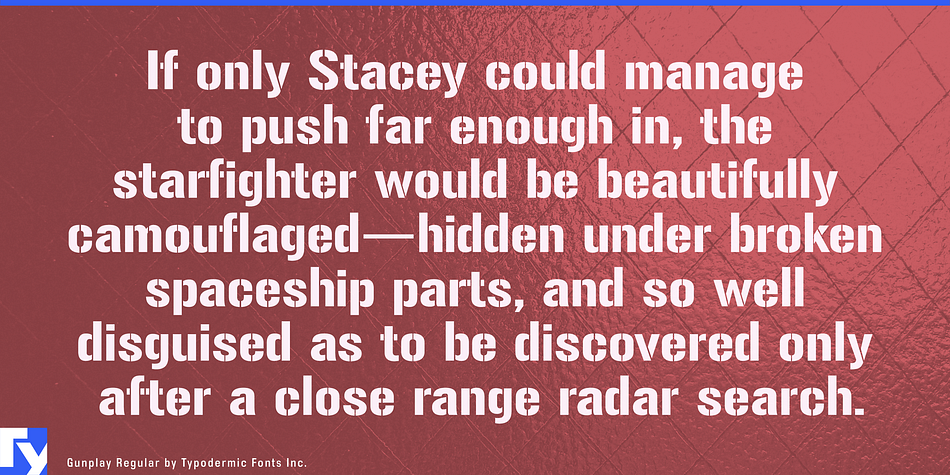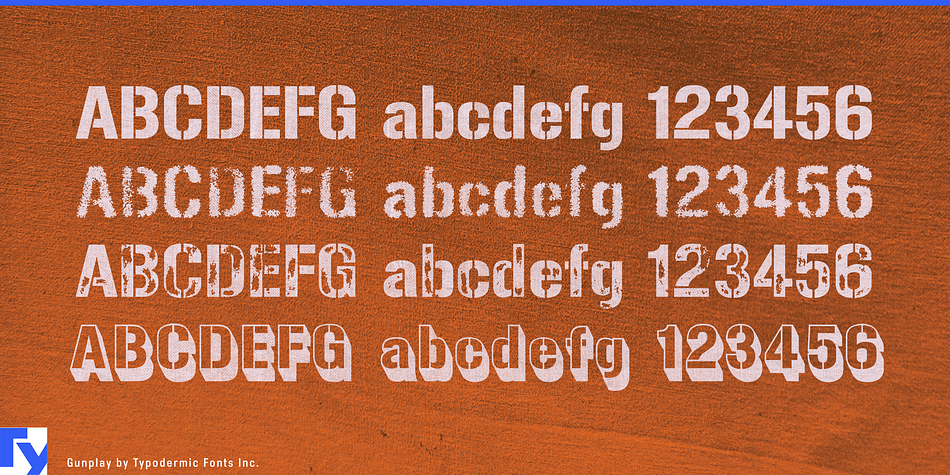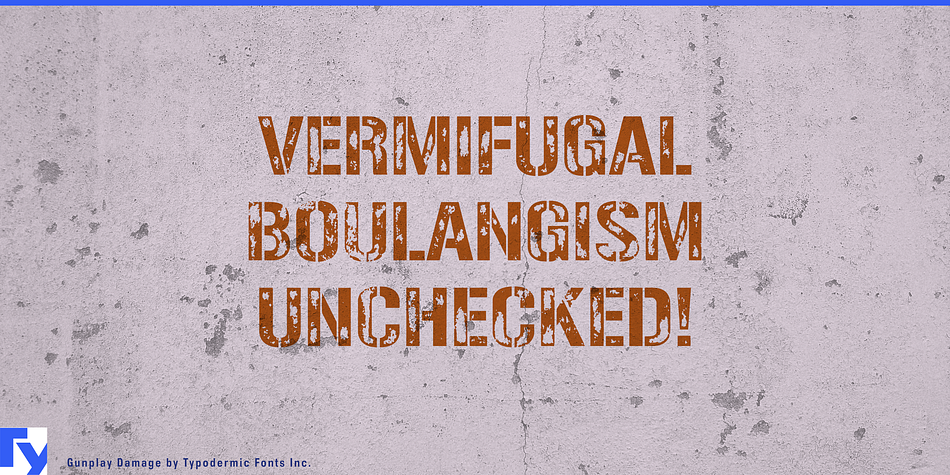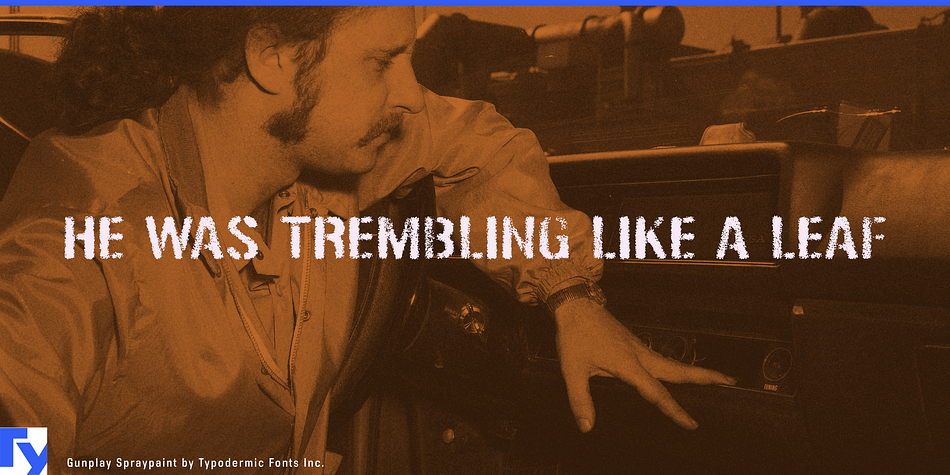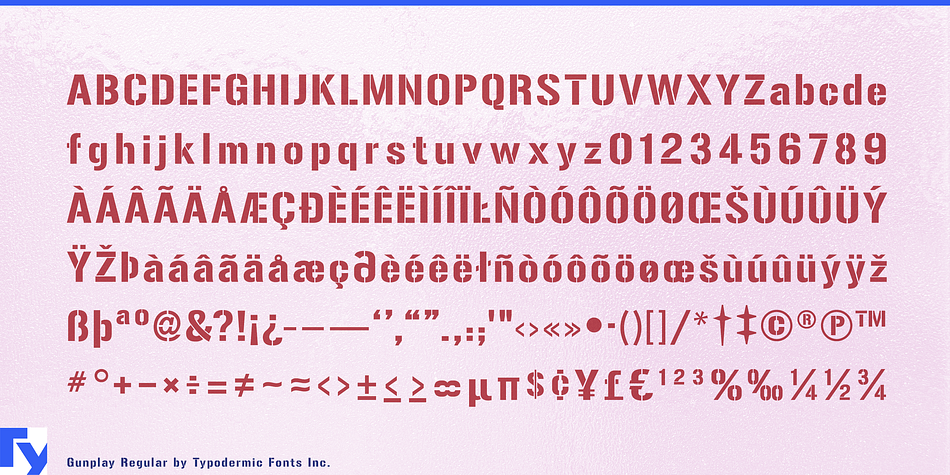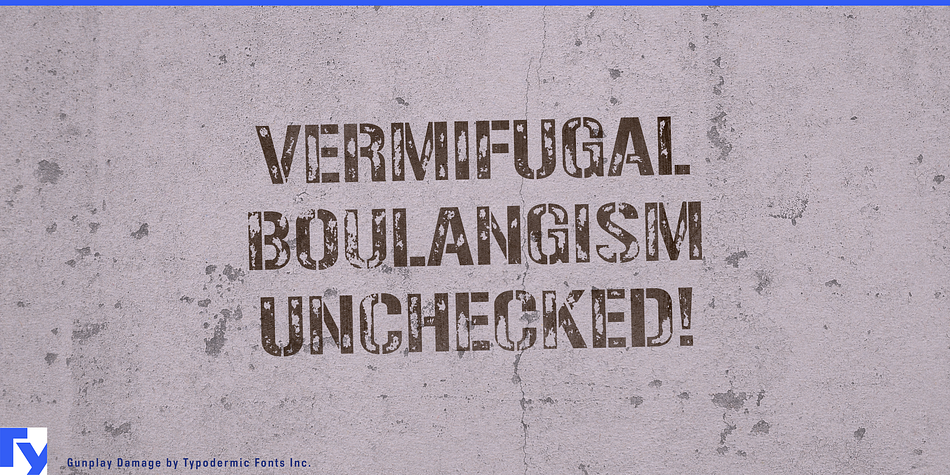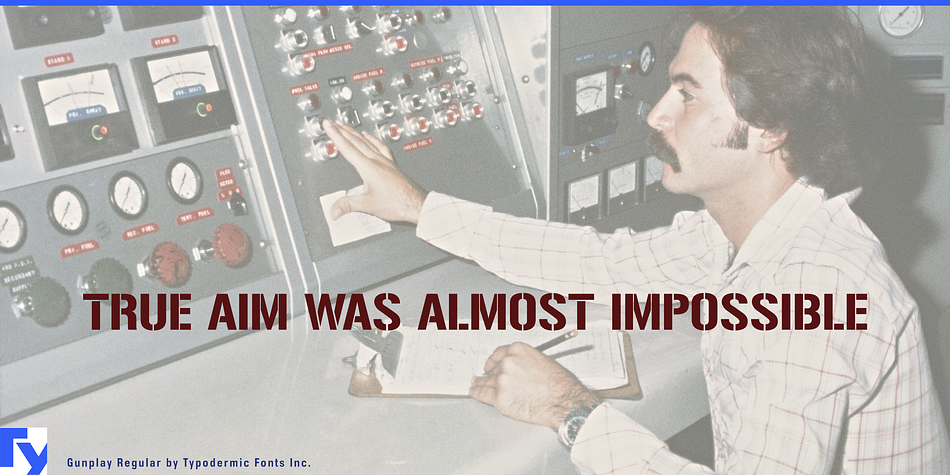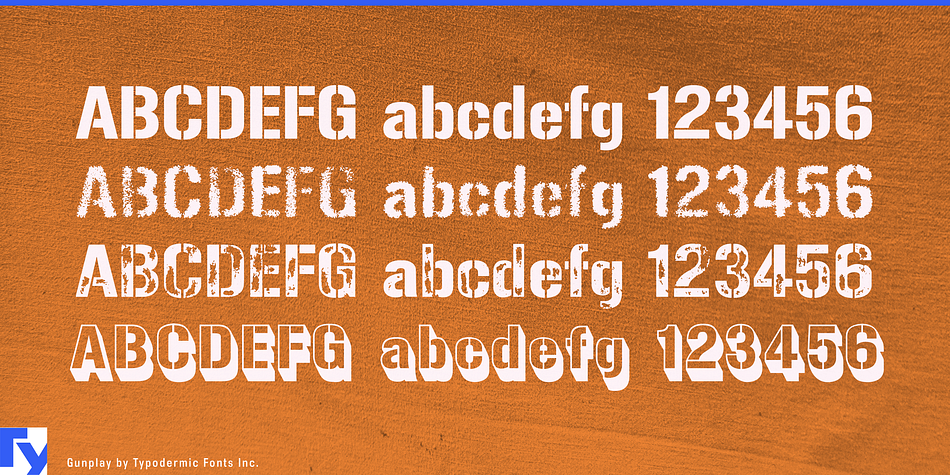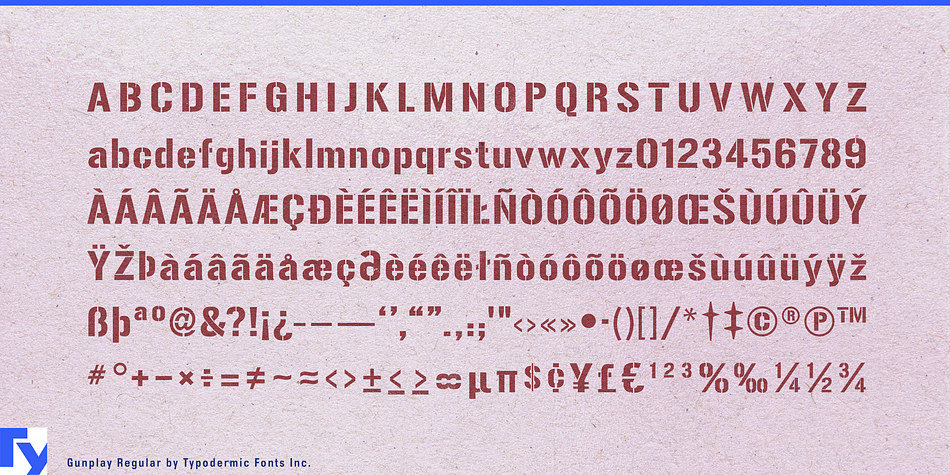
Gunplay is a grunge, stencil and display sans font family. This typeface has four styles and was published by Typodermic Fonts Inc.
Gunplay is a hard-nosed stencil font inspired by the poster for the 1972 Steve McQueen/Ali MacGraw film, The Getaway.